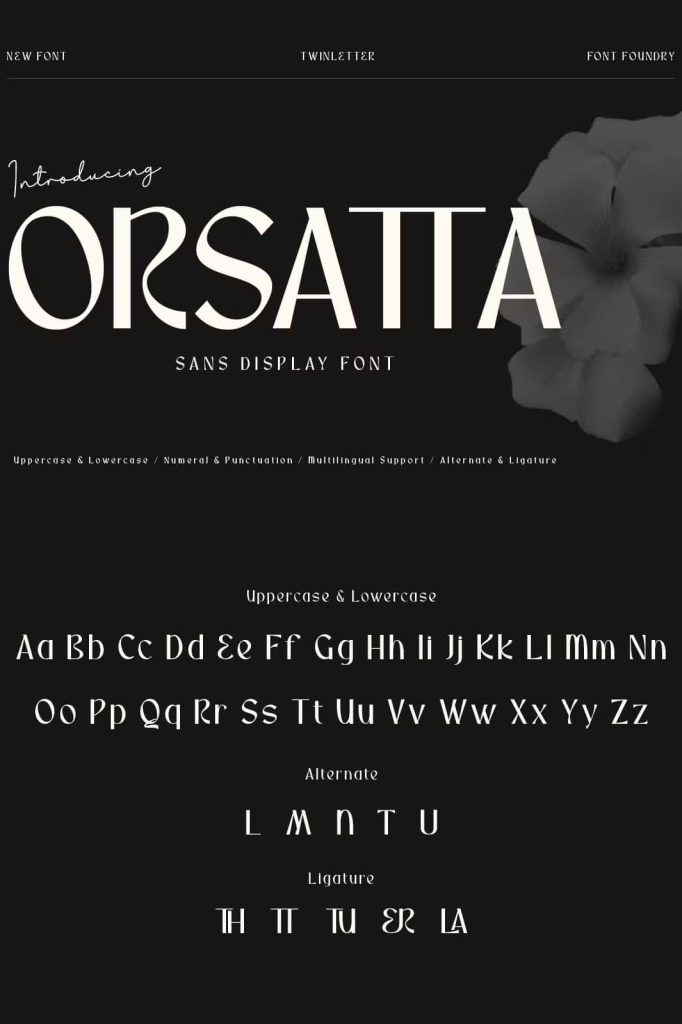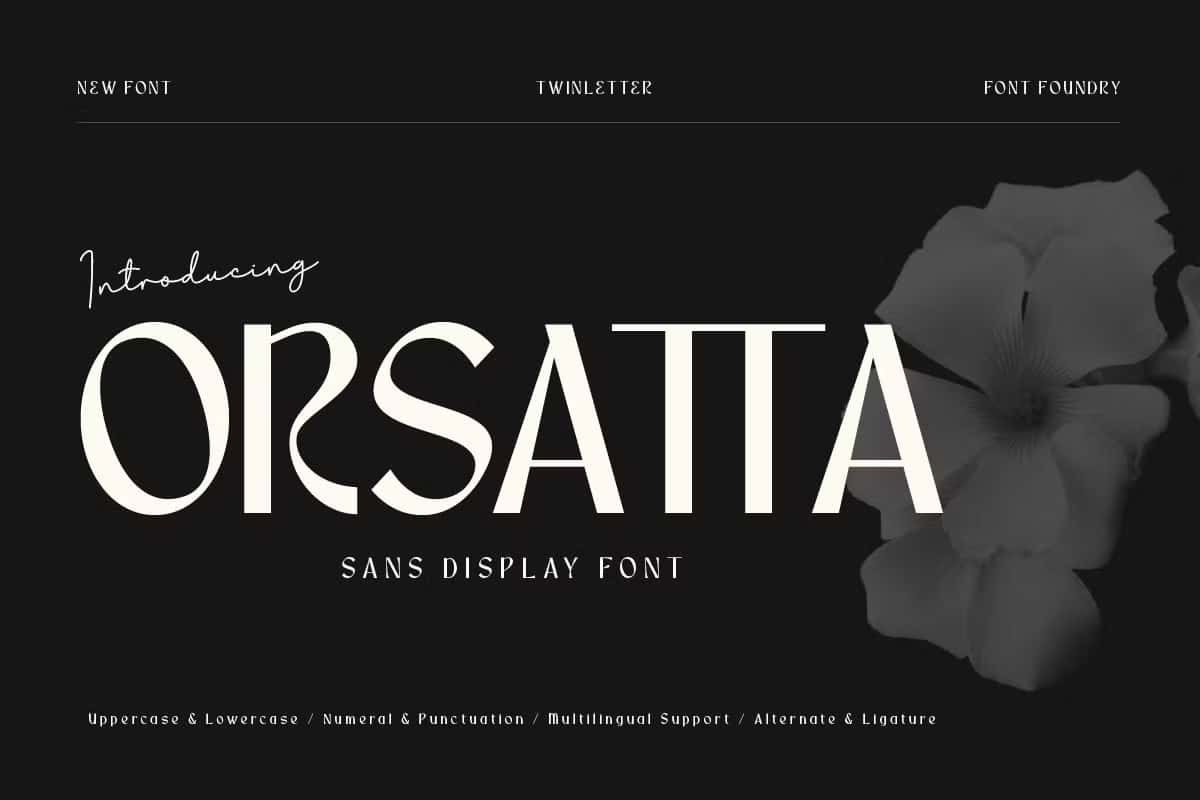
Orsatta – Bold Creativity in Every Curve
Orsatta is a bold and expressive display font that radiates creativity, confidence, and individuality. Designed to stand out, Orsatta captures the spirit of modern artistic expression through its unique structure and striking details. Every curve and angle has been crafted to command attention, making this font the perfect choice for projects that dare to be different. With Orsatta, you don’t just create designs — you create unforgettable visual statements.
Make a Lasting Impression with Dynamic Design
Orsatta embodies the true essence of bold typography. Its dynamic shapes and intricate strokes bring rhythm and energy to every letterform, allowing your words to leap off the page. Whether you’re designing for print or digital platforms, Orsatta ensures your message is not only seen but remembered. Its commanding presence makes it an excellent choice for branding, advertising, and any creative work that calls for personality and power.
Perfect for Impactful Branding and Design
When it comes to branding, first impressions matter — and Orsatta makes sure yours is unforgettable. This display font thrives in high-visibility designs such as logos, posters, album covers, event promotions, and packaging. The bold weight and striking character design give your visuals a distinct voice that speaks to confidence and originality. Whether used for a luxury brand, a music release, or a creative campaign, Orsatta delivers the power and clarity your project deserves.
Expressive Style That Commands Attention
Each letter in Orsatta is designed with purpose and precision. Its bold geometric foundation merges with artistic flair, creating a visual rhythm that’s both modern and timeless. The unique forms make it versatile for contemporary and experimental design, while its structure ensures readability even in complex layouts. The combination of strength and style gives Orsatta its signature edge — perfect for designers who want to blend creativity with professionalism.
Bring Energy and Emotion to Every Project
Orsatta isn’t just a font — it’s a creative tool that infuses your projects with passion and vitality. Its visual strength captures the viewer’s attention instantly, while its intricate detailing holds it there. From energetic marketing materials to avant-garde design concepts, Orsatta transforms ordinary text into expressive works of art. Use it to amplify your ideas, communicate bold messages, and showcase your vision with intensity and flair.
Dare to Design Differently with Orsatta
- Expressive design: Adds emotion and personality to every layout.
- Versatile application: Ideal for posters, logos, album covers, and digital graphics.
- Bold impact: Ensures your message stands out and captures attention instantly.
- Creative energy: Infuses projects with dynamic movement and originality.
Elevate Your Visual Identity
Designers seeking to make a strong impression will find Orsatta to be a reliable and inspiring choice. Its bold composition pairs well with minimalist layouts or vibrant imagery, offering flexibility without compromising personality. Each project gains an unmistakable sense of energy and authenticity that reflects the creative spirit behind the work. With Orsatta, you can create visuals that engage audiences and leave a lasting impact.
Orsatta transforms design into expression. It’s more than a display font — it’s an artistic statement that embodies bold creativity and fearless design. Dare to be different, embrace originality, and let Orsatta bring your vision to life with unmatched vibrancy and strength.